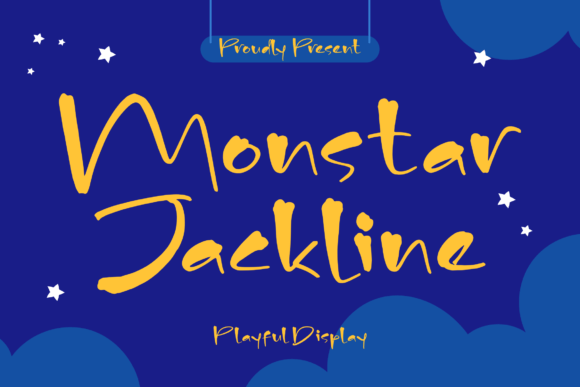
Behold Monstar Jackline, the exquisite handwritten font that will leave you spellbound. It combines classic elegance with a modern twist, a perfect balance of graceful lines and contemporary aesthetics. Dive into the world of Monstar Jackline and let your creativity embark on an extraordinary adventure.
With its elegant swashes and smooth curves, this script font emanates a captivating charm that's sure to make your designs shine. Each stroke of Monstar Jackline exudes artistry, adding a touch of sophistication to every letter. With its timeless appeal, this font will elevate your designs, leaving a lasting impression that transcends trends.
Monstar Jackline is not just a font, it's a versatile masterpiece that adapts effortlessly to a myriad of design projects. Whether you're a seasoned designer or taking your first steps into the world of design, this font is a must-have. Its versatility shines in t-shirt designs, posters, invitations, branding materials, and so much more. Unleash your imagination and watch as your designs come alive with the timeless beauty of Monstar Jackline.
Immerse yourself in the beauty of Monstar Jackline and let your creativity soar. The possibilities are endless with this exceptional font. Download Monstar Jackline today and see the remarkable transformation it brings to your designs. Experience the elegance, the versatility, the sheer joy of creating with a font that truly captures the essence of artistry.